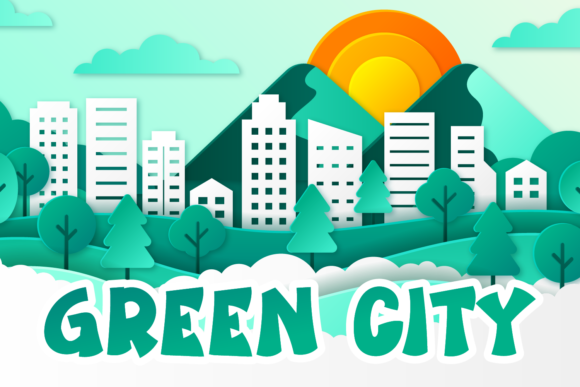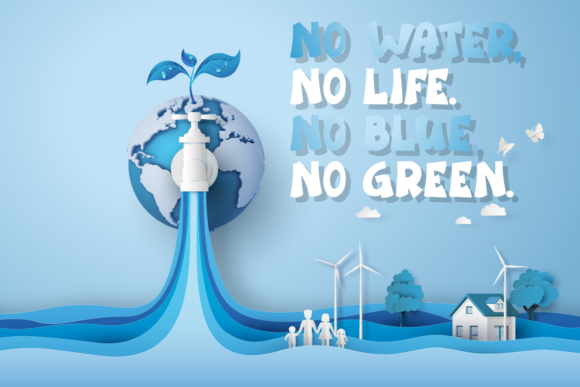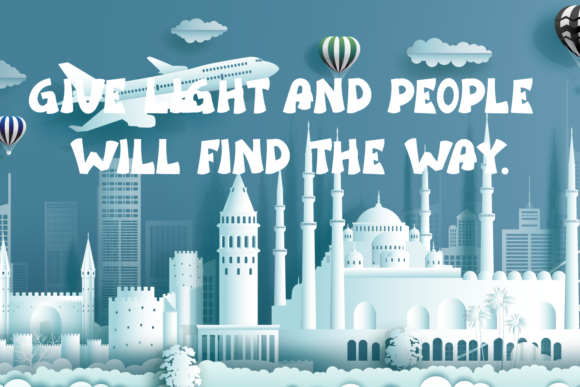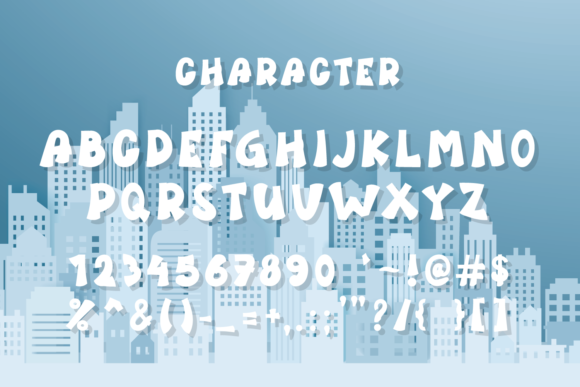
Introduction to My Florida Font
My Florida is a fun and thick lettered display font, that can easily stand out.
Whether you are using it for cartoon-related designs, children games, quotes, titles, brand names, book covers, posters, or just any creation that requires a touch of beauty, this font is a great choice .
Key Features of My Florida Font